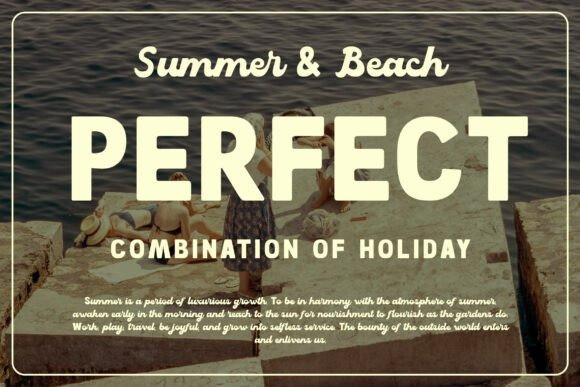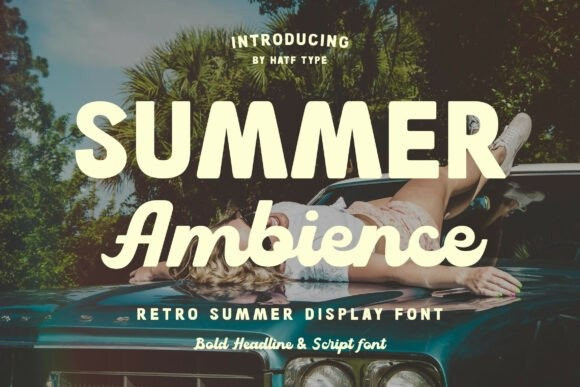
Summer Ambience Font
Summer Ambience Font – Immerse yourself in the golden glow of the sun and the soothing caress of the coastal breeze with each letter crafted in the Summer Ambience font. This retro, summer-inspired typeface infuses your designs with an evocative, laid-back charisma reminiscent of hazy summer days. Its lively, robust style is perfect for embellishing everything from holiday posters and seaside soiree invites to summer merchandise labels and chic social media posts. The sleek contours and clear retro personality of SummerAmbience are sure to make your designs not only easily legible but also visually appealing. Elevate every creative endeavor with Summer Ambience that promises to sail you away on an extraordinary summer voyage.